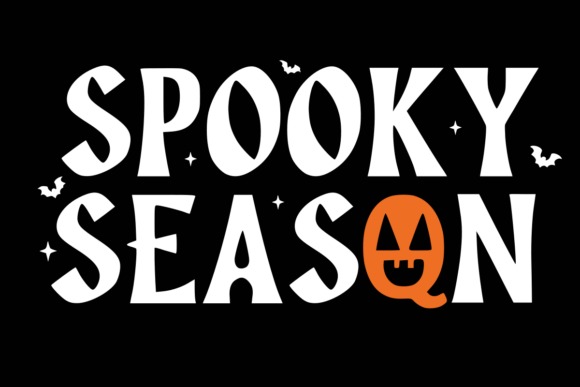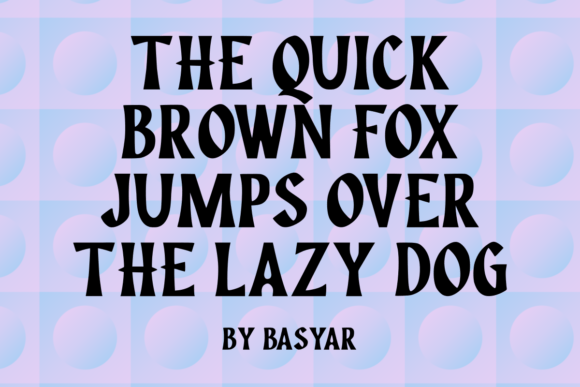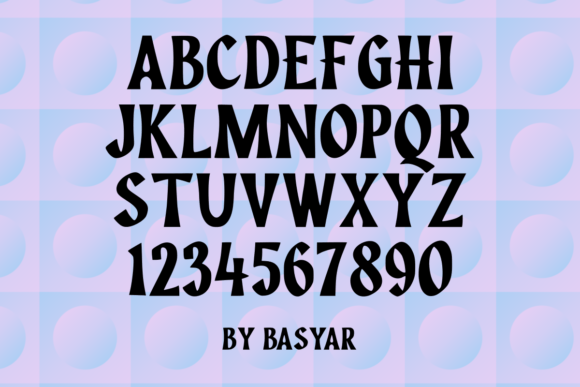
Meet Gerald: The Bold and Striking Font with a Classic Gothic Touch
Are you looking for a font that can add a touch of mystery and eeriness to your designs? Look no further than Gerald, a bold and striking font with a classic gothic touch and playful, whimsical flair. This versatile typeface is perfect for a wide range of design projects, from Halloween and gothic-themed designs to vintage horror posters and unique branding.
The Characteristics of Gerald Font
Gerald font is characterized by its sharp edges and dramatic curves, giving it a bold and striking appearance. Each letter is carefully crafted to bring a sense of mystery and eeriness to your designs. The font’s classic gothic touch is balanced by a playful, whimsical flair, making it perfect for designers who want to add a touch of personality to their work.
Perfect for Halloween and Gothic-Themed Designs
Halloween is just around the corner, and Gerald font is the perfect choice for any spooky design project. Whether you’re creating invitations, posters, or social media graphics, this font is sure to add a haunting yet elegant vibe to your designs. The font’s bold and striking appearance is perfect for grabbing attention and creating a lasting impression.
In addition to Halloween designs, Gerald font is also perfect for gothic-themed designs. The font’s classic gothic touch and mysterious atmosphere make it ideal for designers who want to create a sense of drama and intrigue. Whether you’re designing a logo, brochure, or website, Gerald font is sure to add a touch of sophistication and elegance to your work.
Vintage Horror Posters and Unique Branding
Gerald font is not just limited to Halloween and gothic-themed designs. It’s also perfect for vintage horror posters and unique branding projects. The font’s bold and striking appearance is reminiscent of classic horror movies and posters, making it a great choice for designers who want to create a retro or vintage look.
In terms of branding, Gerald font is perfect for designers who want to create a unique and memorable brand identity. The font’s mysterious and eerie atmosphere is sure to stand out in a crowded market, and its bold and striking appearance is perfect for grabbing attention.
Adding a Haunting yet Elegant Vibe to Your Designs
Gerald font is designed to add a haunting yet elegant vibe to your designs. The font’s classic gothic touch and playful, whimsical flair make it perfect for designers who want to create a sense of mystery and intrigue. Whether you’re designing a spooky invitation or an edgy logo, Gerald font is sure to bring a touch of sophistication and elegance to your work.
One of the key benefits of Gerald font is its versatility. The font can be used for a wide range of design projects, from print materials like posters and brochures to digital projects like websites and social media graphics.
Tips for Using Gerald Font
Here are a few tips for using Gerald font in your designs:
- Use Gerald font in large sizes to make a bold statement. The font’s bold and striking appearance is perfect for grabbing attention and creating a lasting impression.
- Experiment with different colors to add depth and interest to your designs. Gerald font looks great in bold, bright colors, as well as more muted, pastel shades.
- Don’t be afraid to get creative with Gerald font. The font’s playful, whimsical flair makes it perfect for designers who want to add a touch of personality to their work.
| Font Name | Gerald Font |
| Author | basyar |
In conclusion, Gerald font is a bold and striking font with a classic gothic touch and playful, whimsical flair. The font’s sharp edges and dramatic curves make it perfect for a wide range of design projects, from Halloween and gothic-themed designs to vintage horror posters and unique branding. With its mysterious and eerie atmosphere, Gerald font is sure to add a haunting yet elegant vibe to your designs. So why not give Gerald font a try and see the difference it can make in your design work?